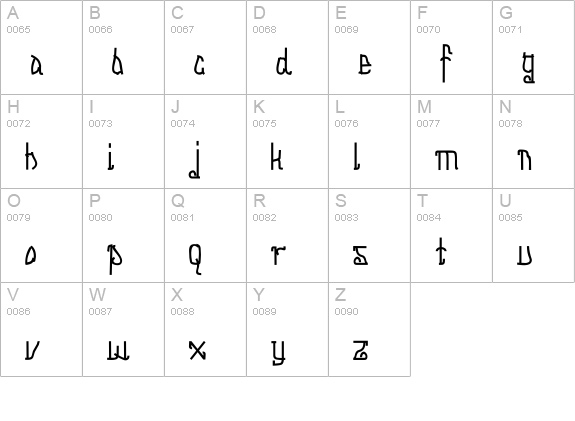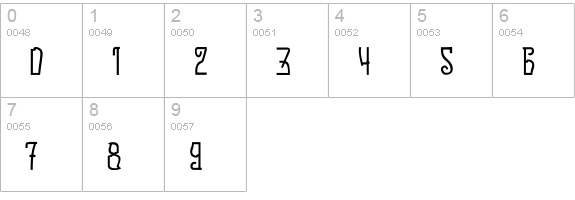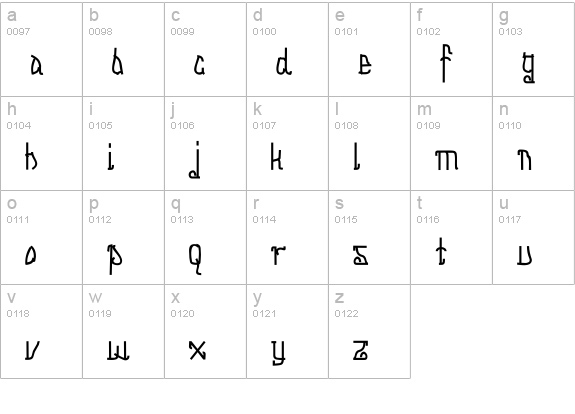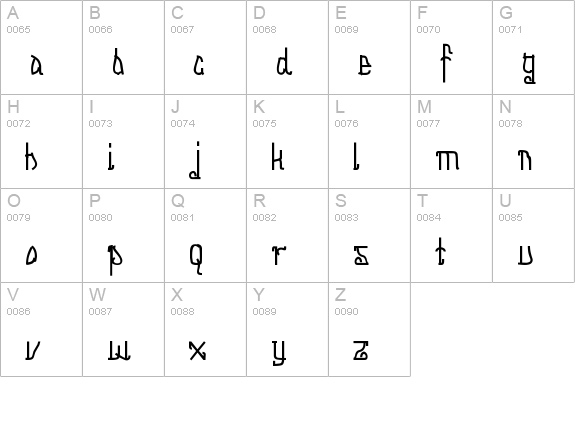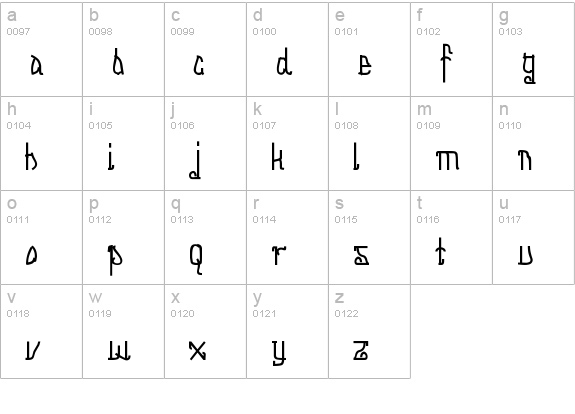
Ich bin Endie Font Details
Ich bin Endie is a beautifully crafted font that exudes elegance and sophistication. Its clean lines and graceful curves make it a perfect choice for any design project that requires a touch of class. Whether you're creating a logo, designing a website, or working on a print publication, Ich bin Endie will elevate your work to new heights. What sets Ich bin Endie apart is not just its stunning aesthetic, but also its versatility. This font can be used for both headings and body text, making it a versatile choice for any design application. Its legibility ensures that your message will be easily understood, while its unique personality adds a touch of character to your designs. One of the best things about Ich bin Endie is that it is free. That's right, this amazing font is freely available to download at FontsMarket.com. You don't have to break the bank to add this stunning font to your collection. Simply visit FontsMarket.com and start downloading Ich bin Endie today. So why wait? Enhance your design projects with the timeless beauty of Ich bin Endie. Download this amazing font for free at FontsMarket.com and unleash your creativity like never before.